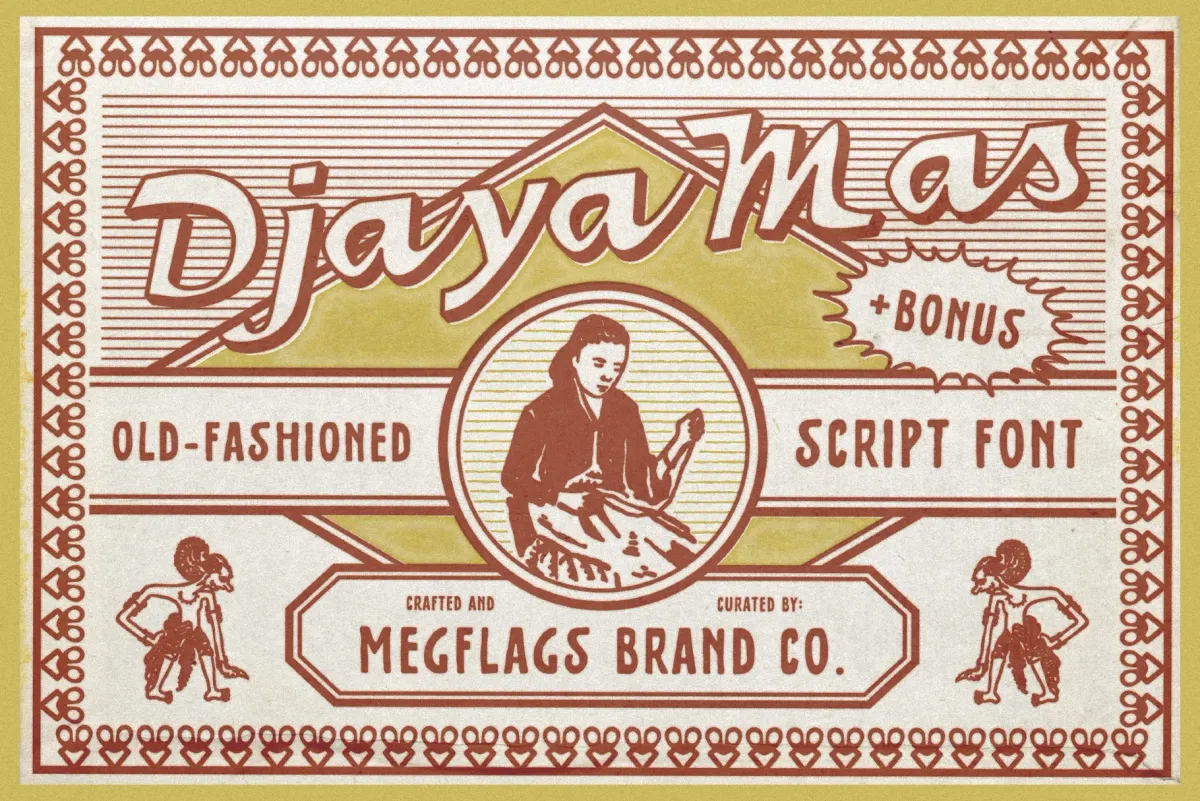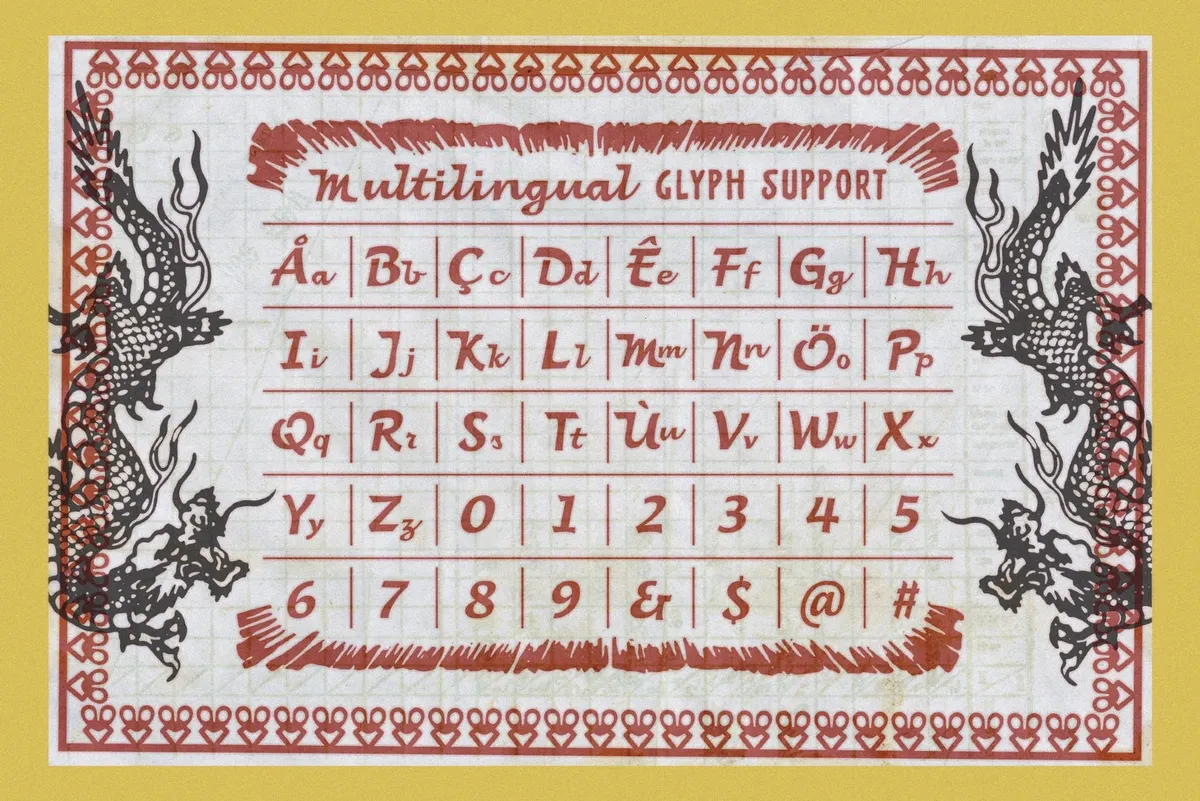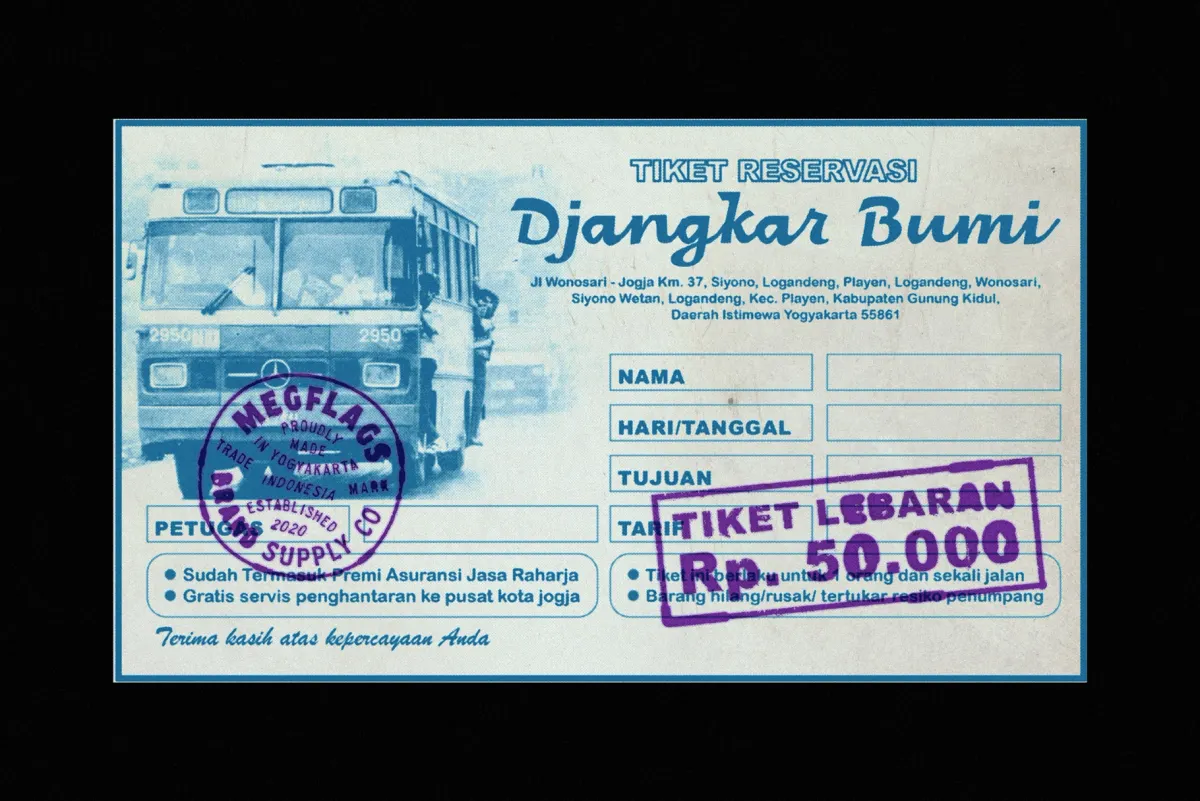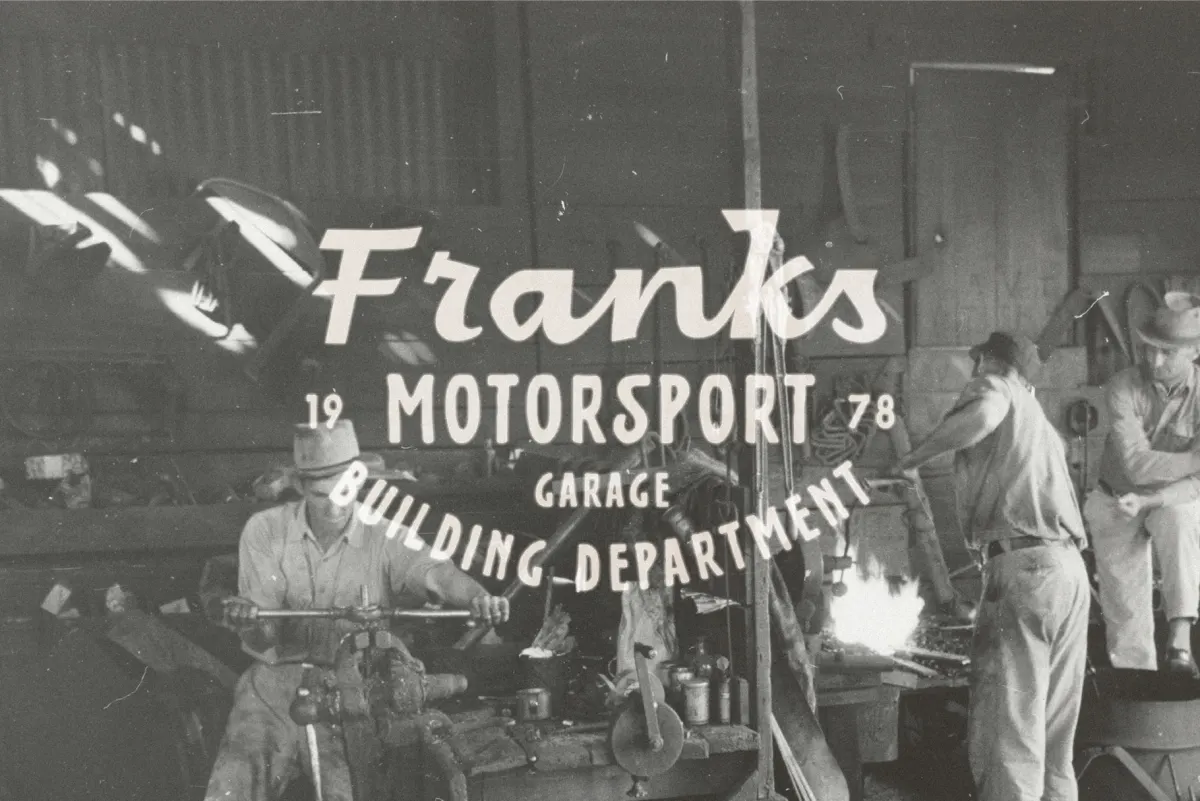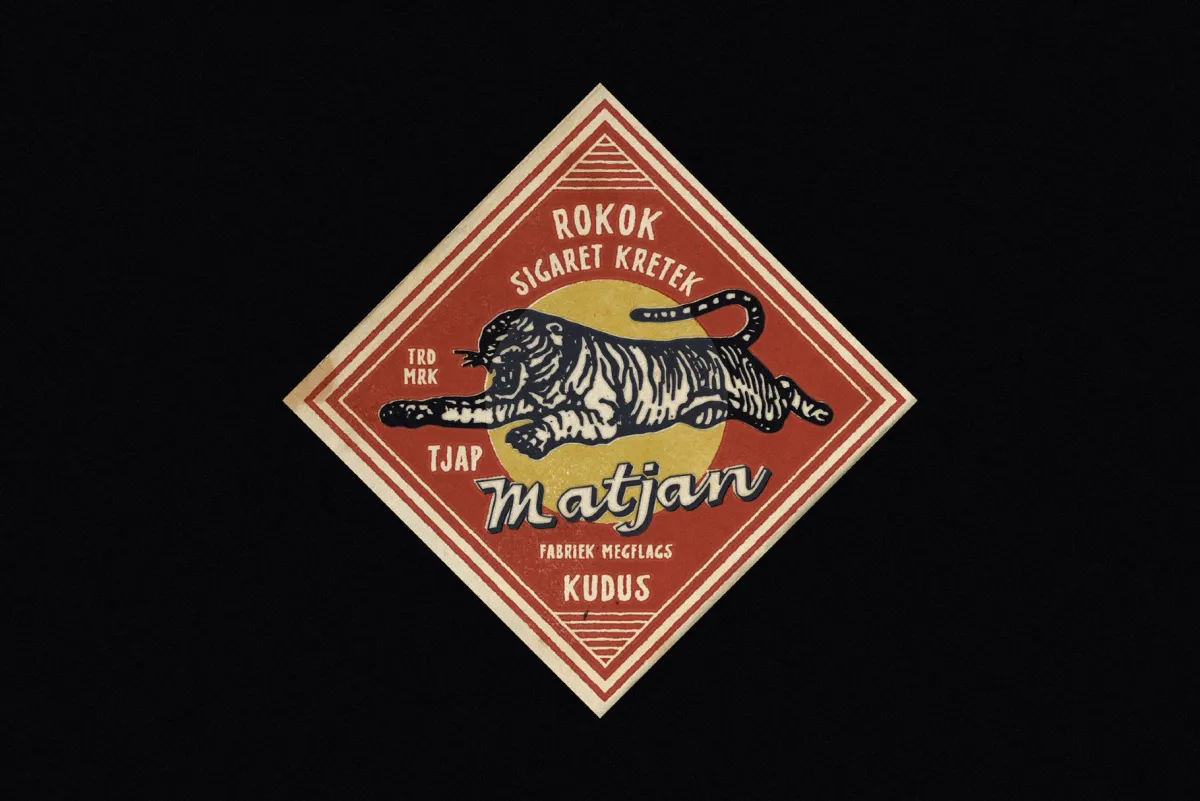
DjayaMas Script Font
DjayaMas
DjayaMas carries the look of early-'90s Indonesian street lettering. It's entirely about toko signboards with hand-brushed curves, comic cover titles with chunky outlines, and product labels printed a little too hot. The strokes run thick and steady, then kick into sharp hooks and compact swashes that are drawn for impact.
The references sit in everyday vernacular graphics: warung menus written fast but bold, pasar stall banners, instant-drink labels, cassette and snack packaging, and local comic mastheads.
- Street-food and café branding: wordmarks, cup stamps, menu headings, loyalty cards.
- Packaged goods: jar labels, snack wrappers, spice packets, coffee bags, bottle neck tags.
- Local retail identities: minimart signage, storefront decals, price boards, promo posters.
- Event graphics: gig posters, night market flyers, community festival banners, ticket stubs.
- Apparel and merch: screen-printed tees, tote bags, sticker sheets, patches, hang tags.
- Illustration and comics: cover lettering, chapter titles, sound effects, in-world signage.
- Packaging systems: brand badges, flavor names, limited-edition callouts, seal graphics.
- Hospitality touchpoints: takeout sleeves, table tents, delivery labels, window specials.
- The main script plus a companion bonus font.
- Uppercase and lowercase, numerals, punctuation, special characters, and multilingual support.